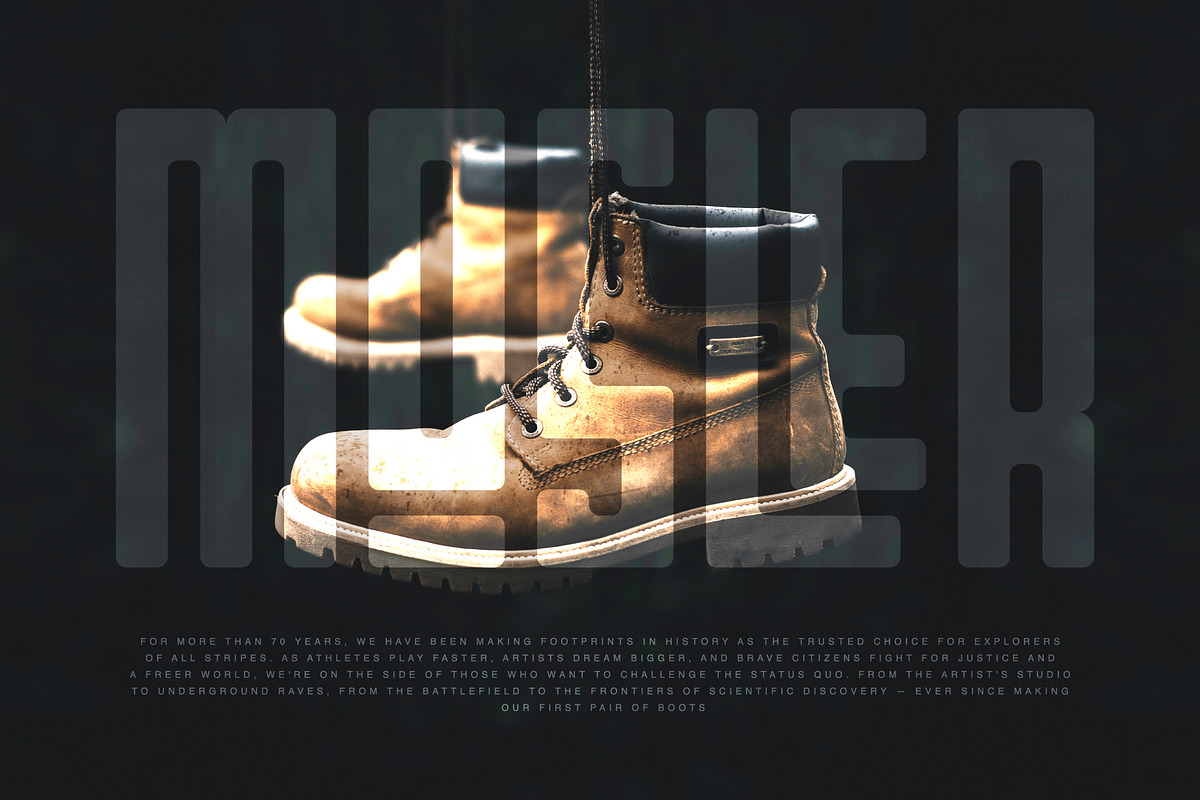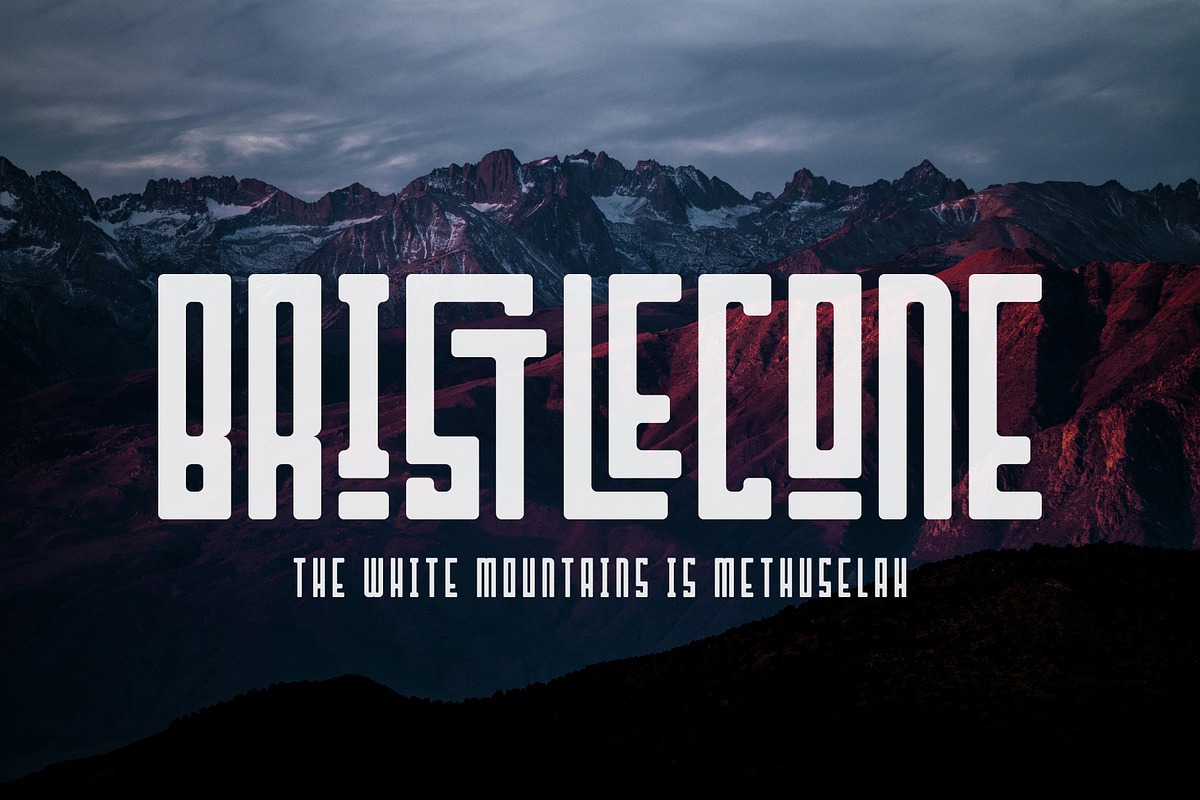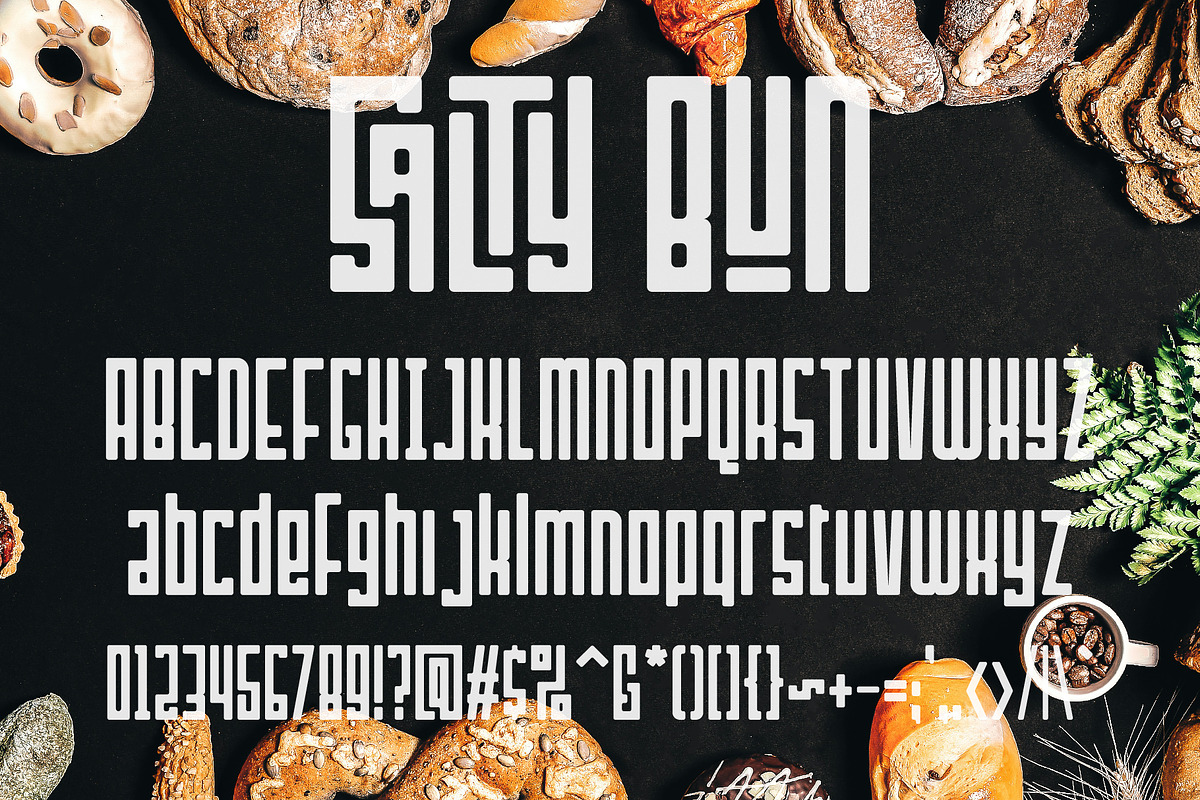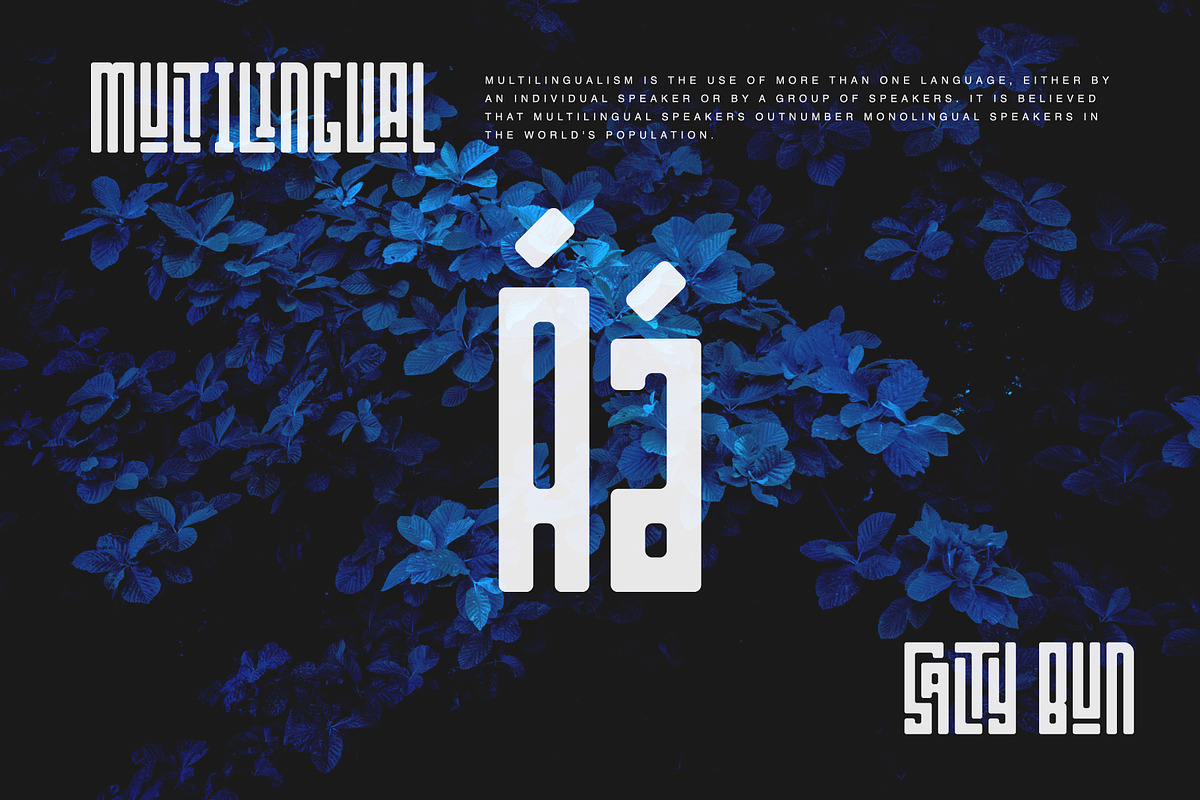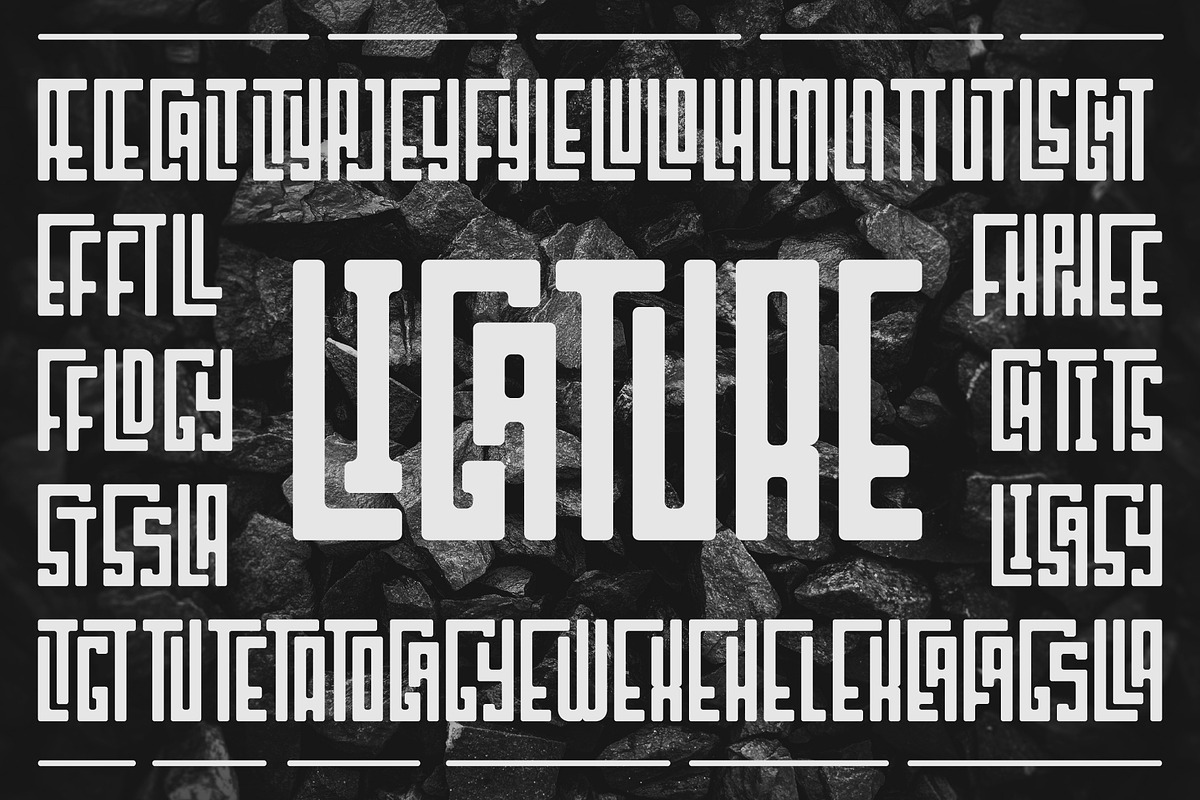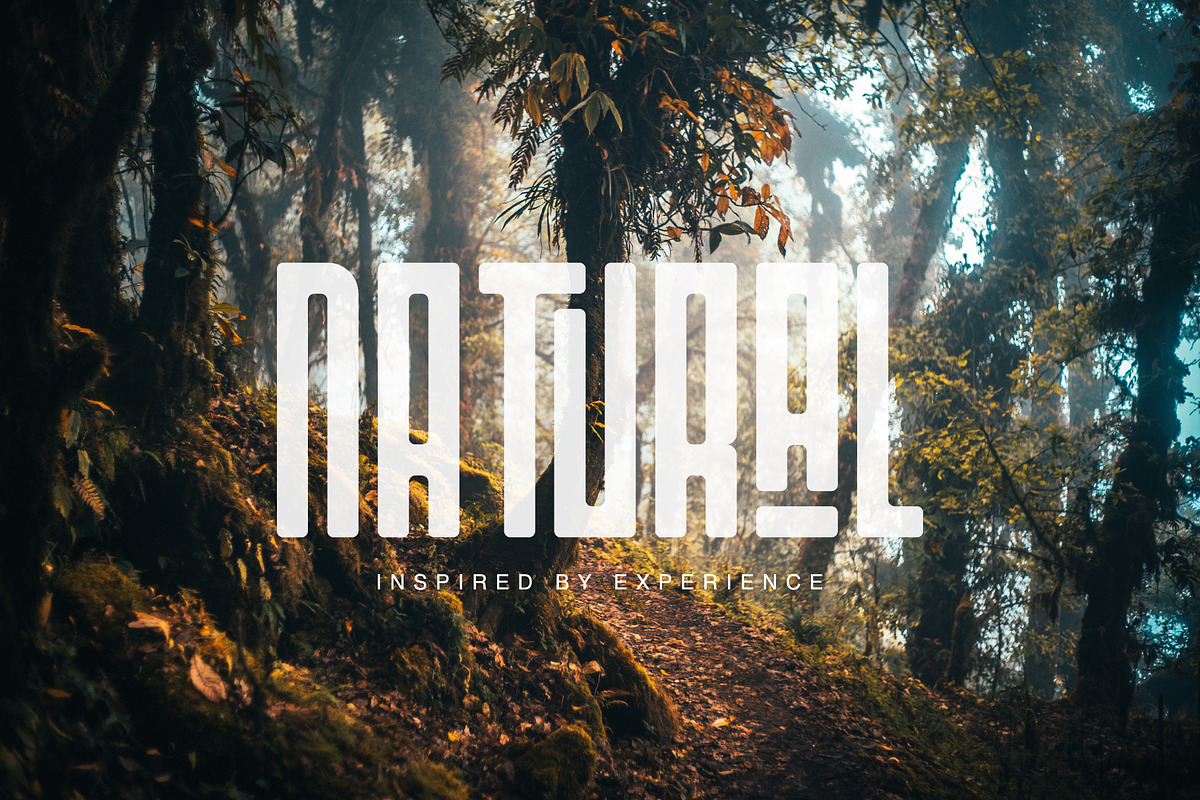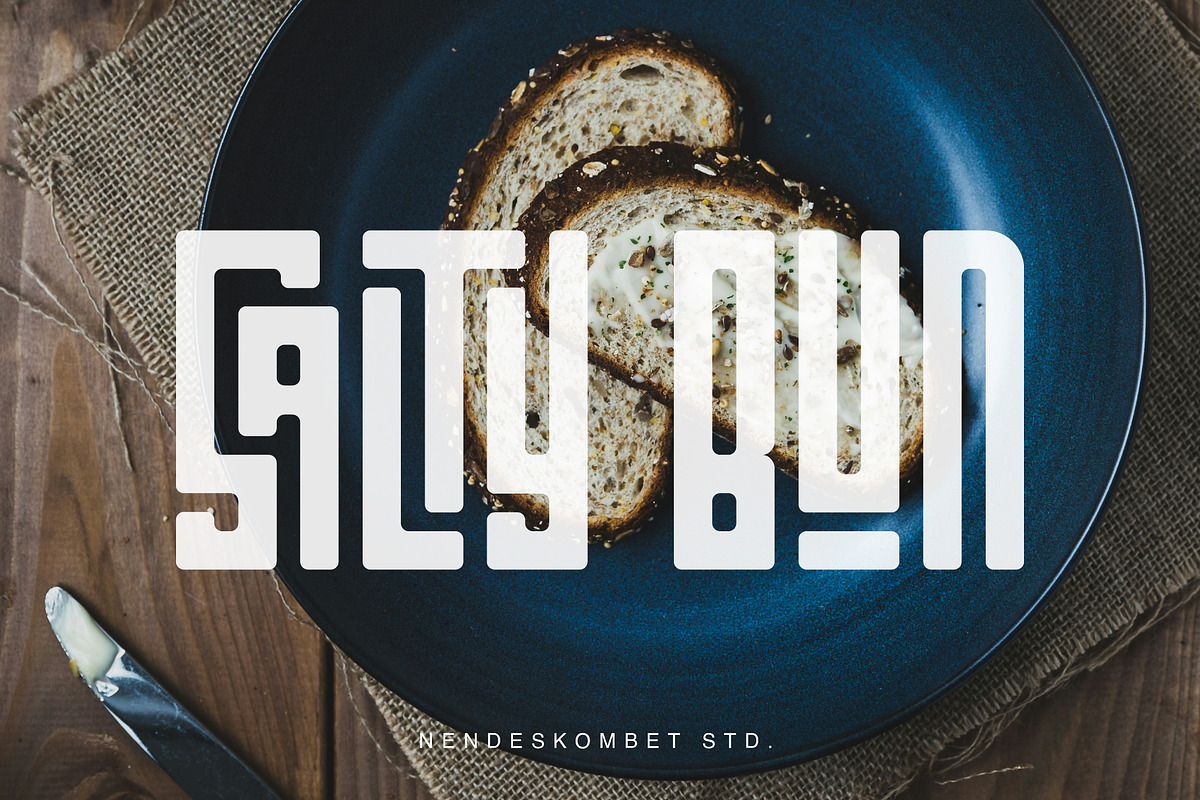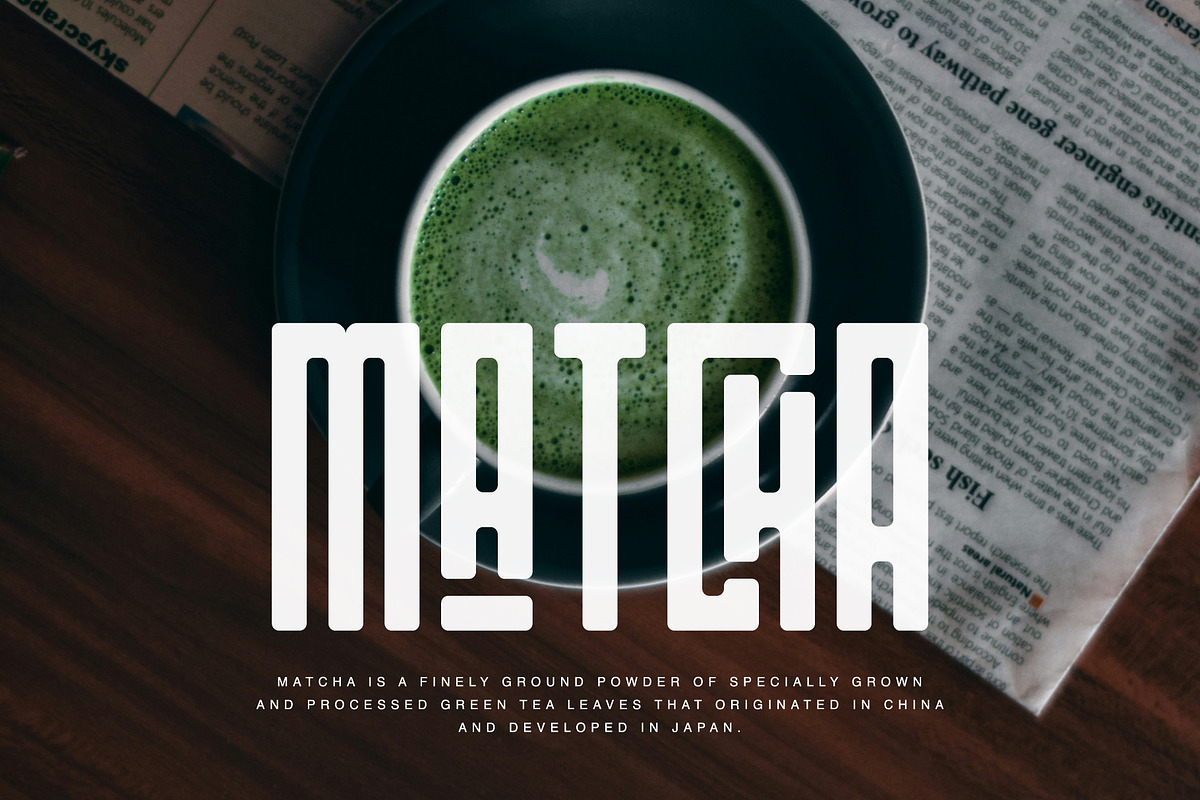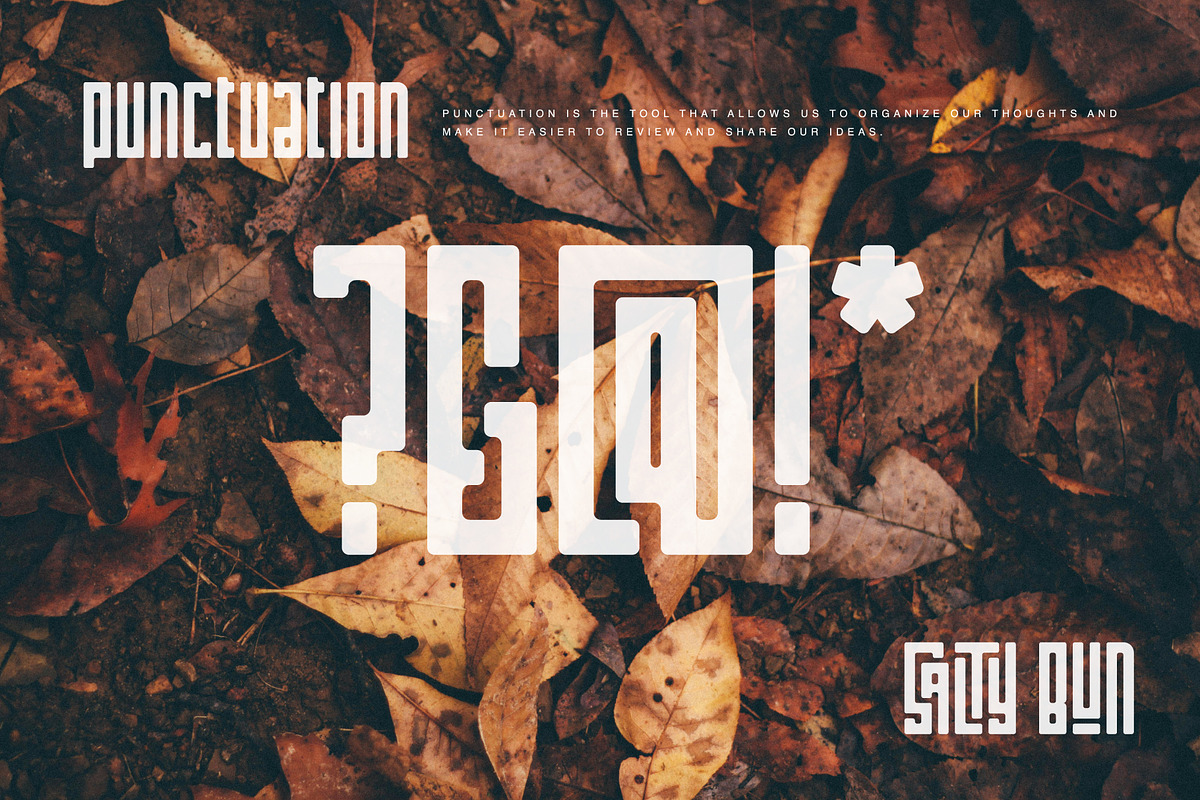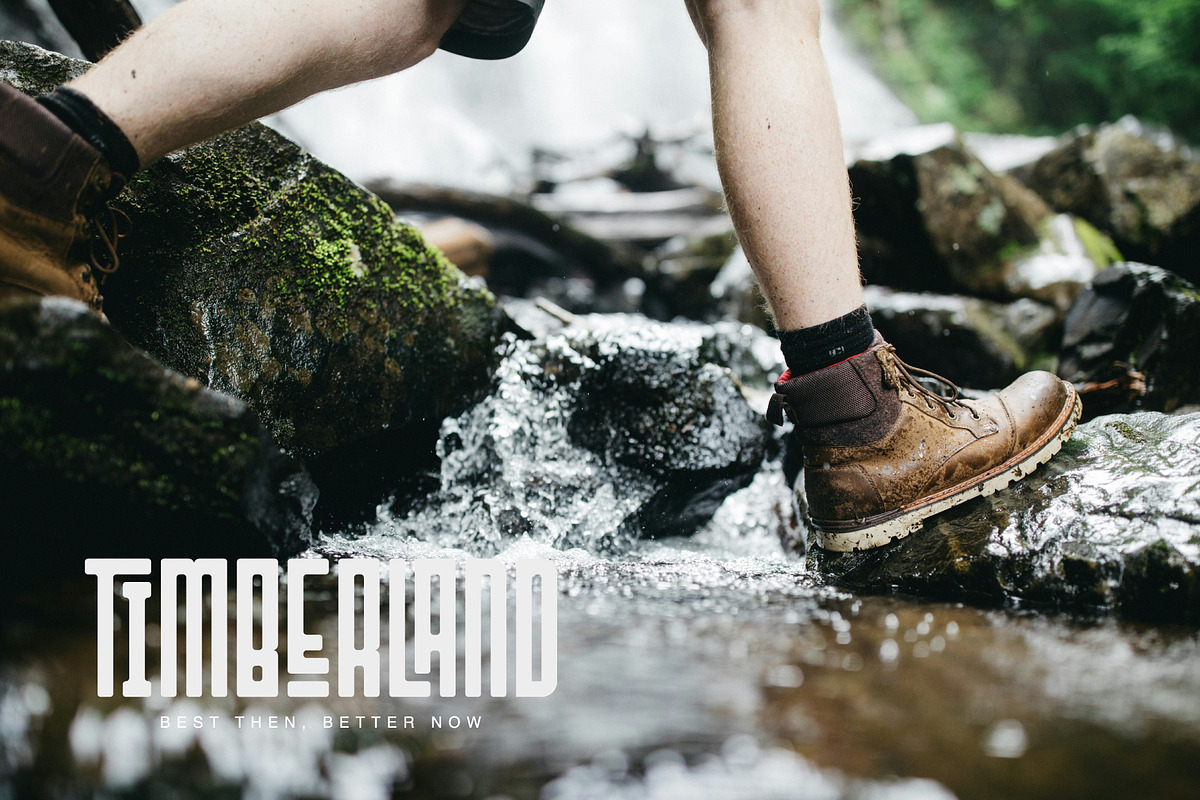
SALTY BUN
SALTY BUN - Ultra Condensed Square font and Come with many ligatures collection, It's Perfect for logo, name card, magazin layout,headers, or large scale artwork.